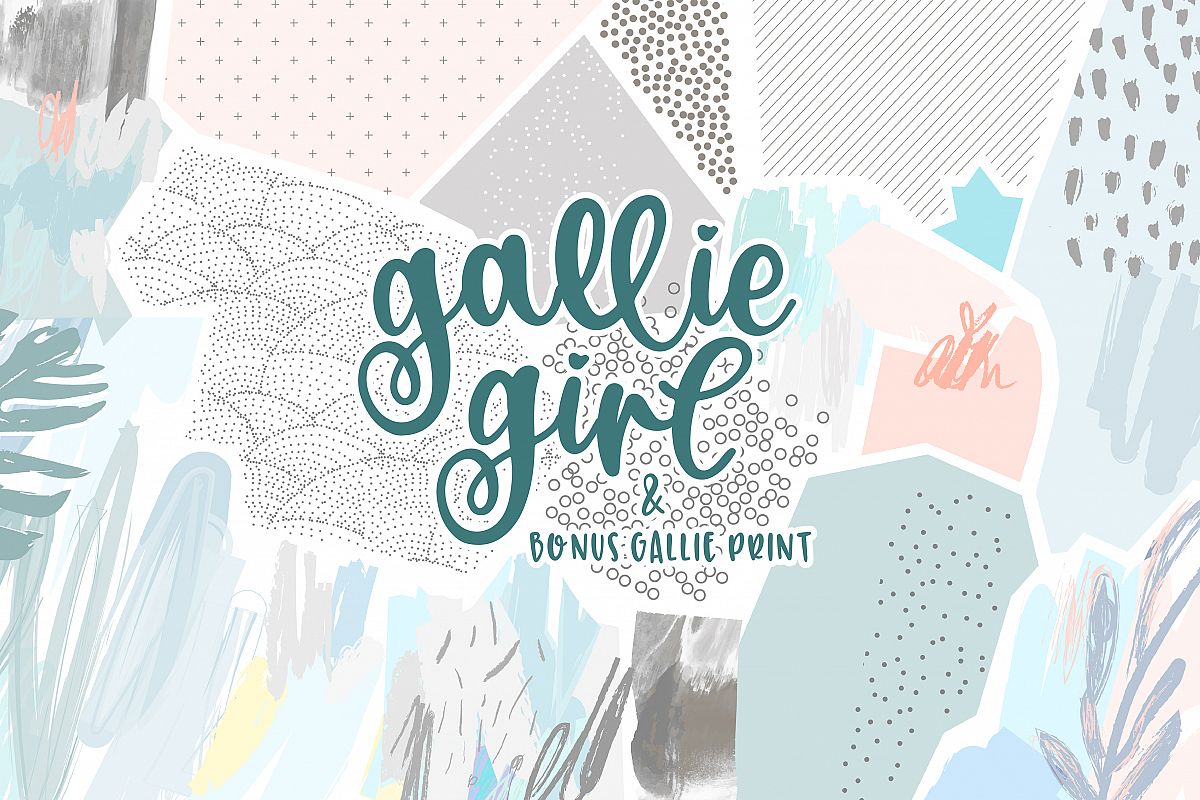
Gallie Girl
Gallie Girl is the newest design from OTSS! Bringing back the beloved "heart" letters (as seen in Girlfriend) + a bonus print that coordinates perfectly!